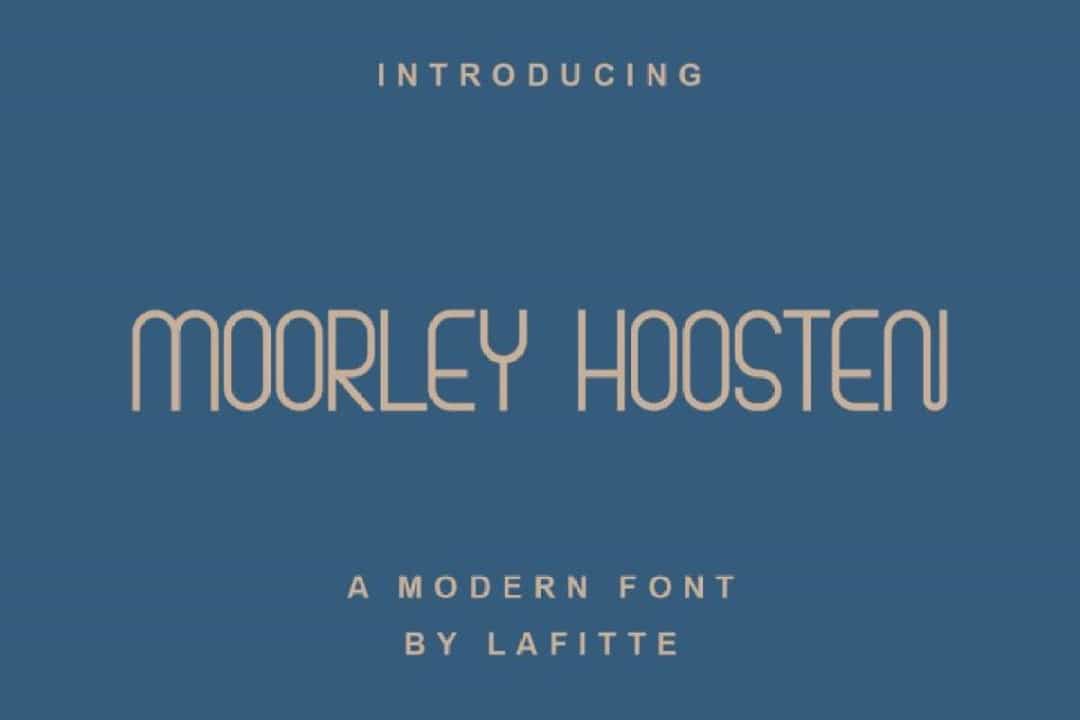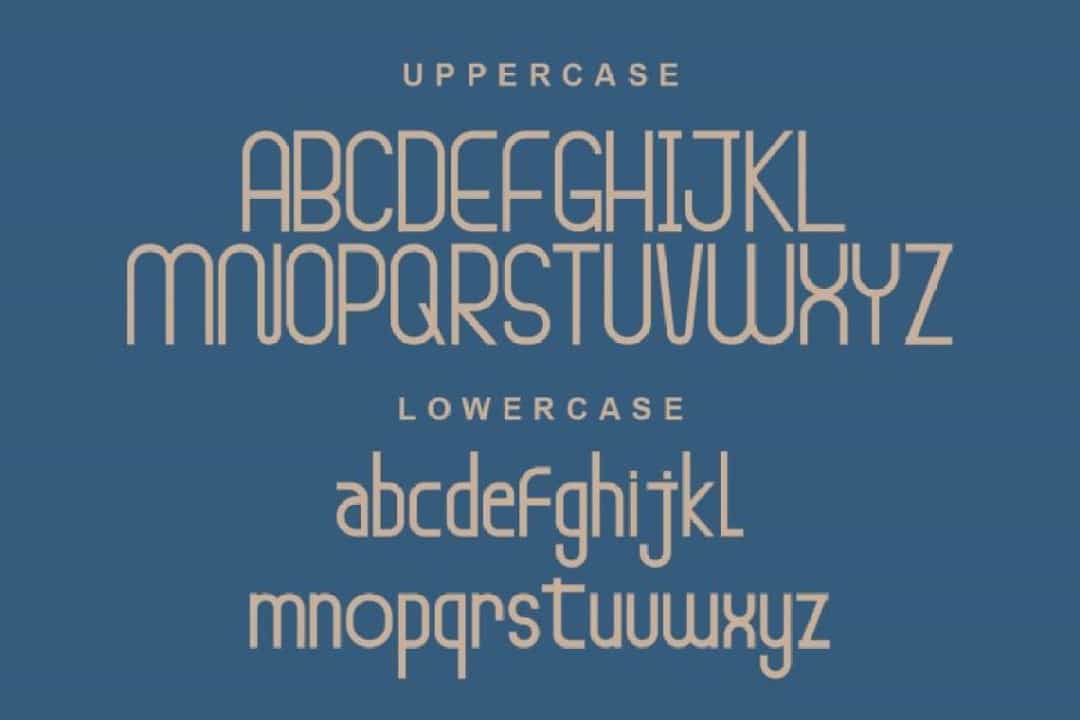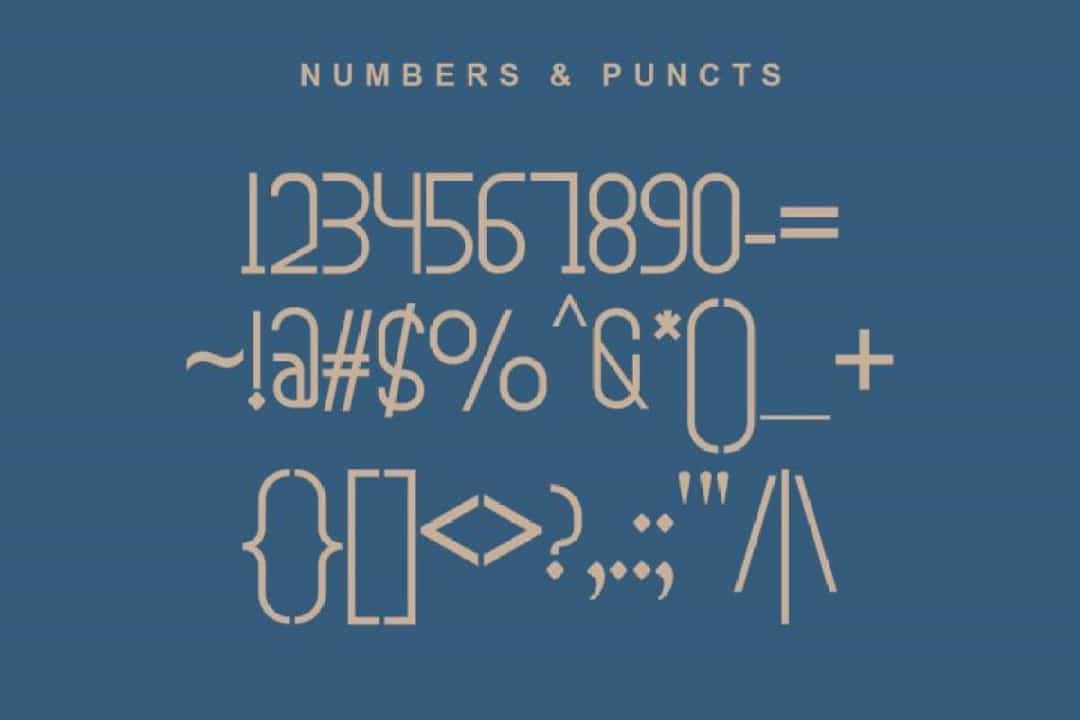
Moorley Hoosten can be characterized as a contemporary, lean and clean, sans serif font. This specific style will also make it easy to use in various creative projects such as titles and letterheads as well as stationery.